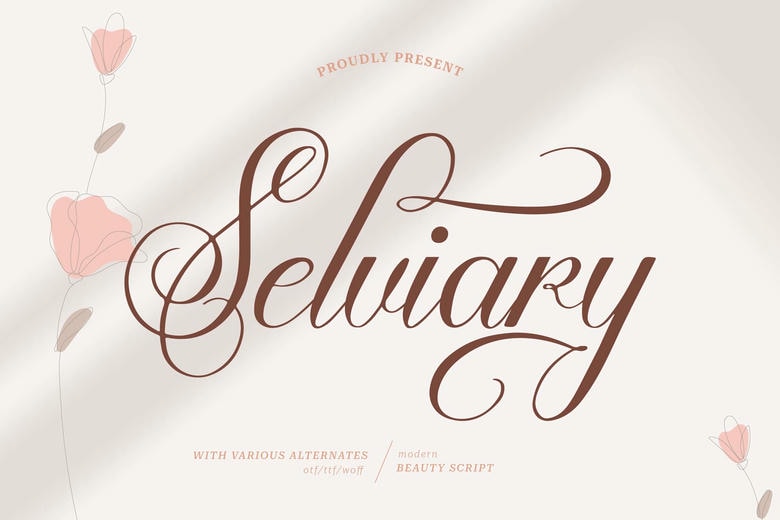
Selviare Font
Selviary is a beautiful script font, which can be used in any projects like: logos, branding projects, homeware designs, product packaging, mugs, quotes, posters, shopping bags, t-shirts, book covers, name card, invitation cards, greeting cards, label, photography, watermark, special events and all your other beautiful projects that require a beautiful script taste.
Selviare Script Font